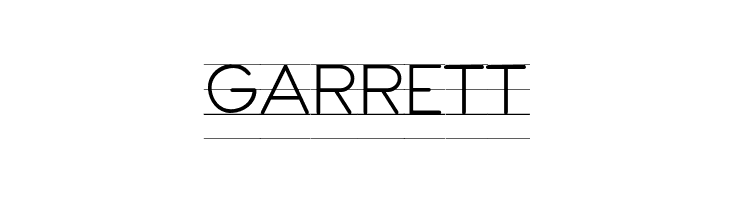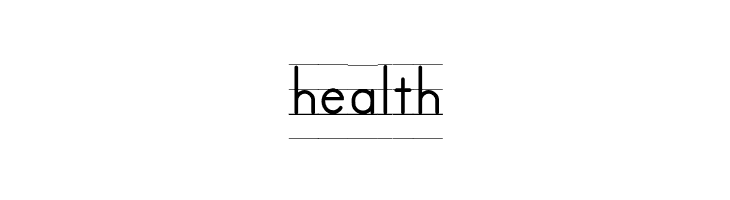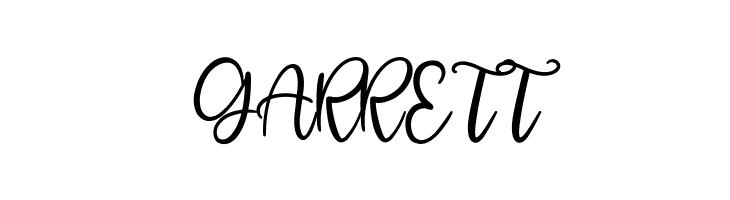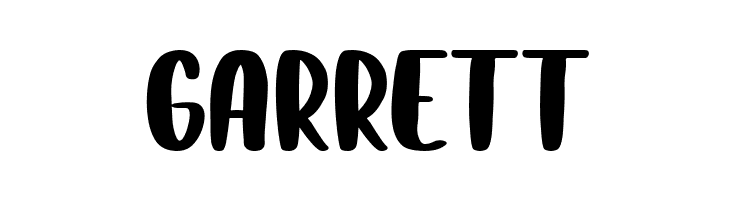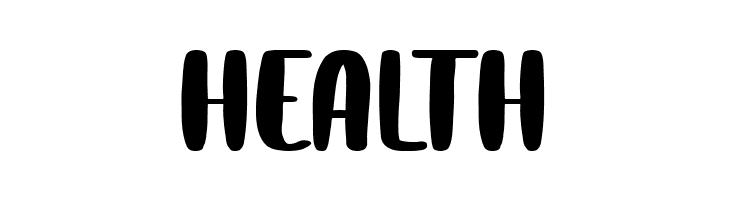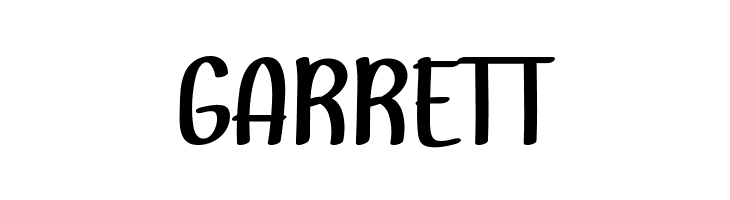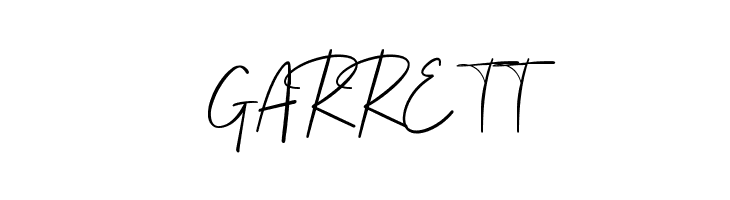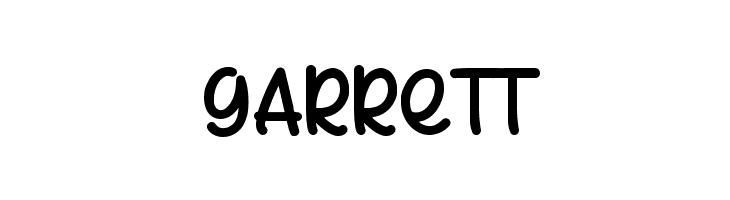
A bold, playful handwritten font with thick strokes and rounded edges.
A lively handwritten font with fluid, dynamic strokes and a playful style.
A playful, hand-drawn font with rounded edges and consistent stroke width.
A bold, handwritten font with a playful and casual style.
A playful, hand-drawn font with rounded, irregular letterforms.
A playful, hand-drawn font with tall, narrow letters and a whimsical style.
A lively, flowing script font with elegant cursive letterforms.
A modern, rounded font with uniform stroke width and excellent readability.
A sleek, italicized font with a modern and elegant style.
A clean, structured font ideal for educational and handwriting practice.